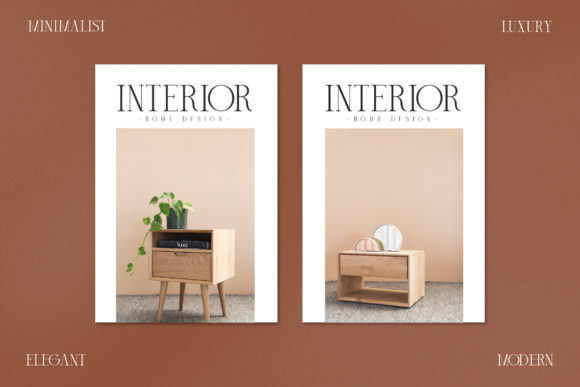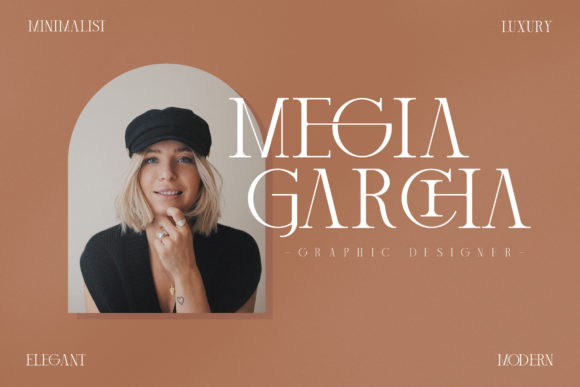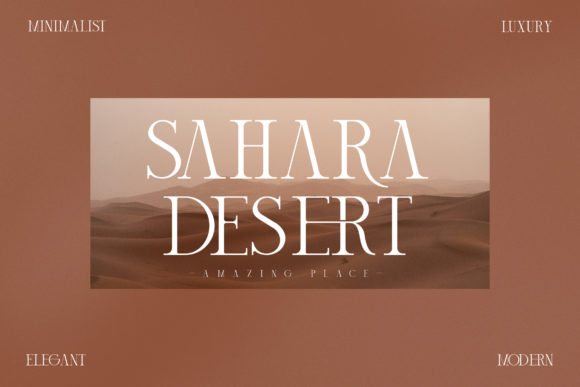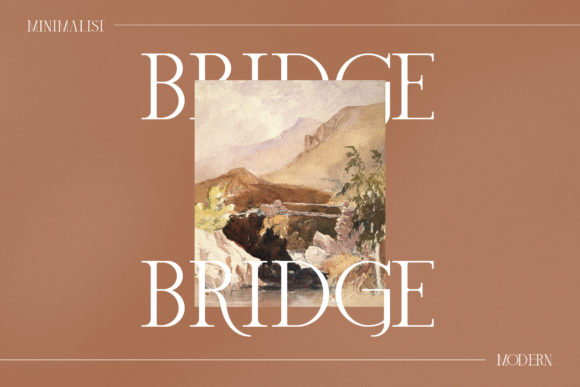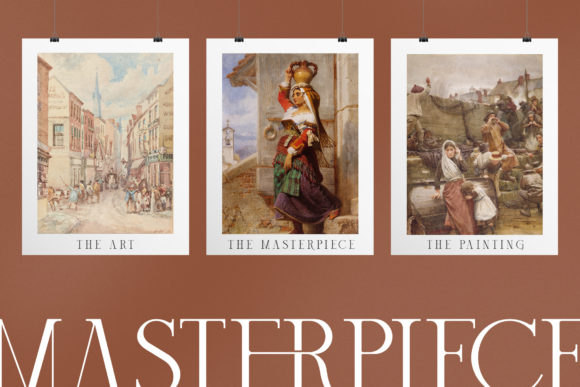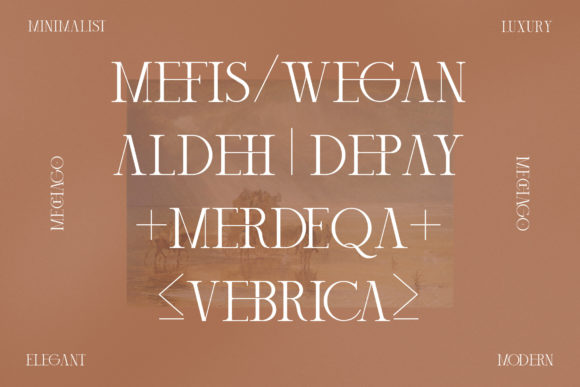
Introduction to Mechago Font
Have you ever been in the midst of a creative project, staring at a blank canvas or a blank page, and suddenly, an idea strikes you? The thrill of bringing that vision to life is exhilarating, and the right design resource can make all the difference. That’s where Mechago Font comes in – a tall and thin lettered serif font that’s about to take your crafting ideas to the next level.
Key Features of Mechago Font
- High-quality vector design, ideal for creative projects requiring precision and clarity.
- Transparent background, allowing for seamless integration into various design elements and backgrounds.
- Includes 12 unique characters, offering a versatile range of design possibilities.
- Designed with a focus on modern aesthetics, making it a valuable design resource for contemporary projects.
- High-resolution design, suitable for large-scale print materials and digital displays.
Honest Review: Mechago Font
Here’s what I like about the Mechago Font:
- ✨ The font is highly customizable, allowing me to adjust the weight, size, and color to suit my design needs.
- ✨ The transparent background feature makes it easy to integrate the font into various design elements.
However, I do have some limitations to note:
- ⚠️ The font may not be suitable for all types of creative projects, particularly those requiring a more formal or traditional look.
- ⚠️ Some users may find the font too bold or overpowering, which could be a drawback in certain design contexts.
Overall, I’m impressed with the Mechago Font’s versatility and high quality. While it may not be perfect for every design project, it’s definitely a valuable resource to have in my design arsenal. If you’re looking for a bold and eye-catching font for your creative project, the Mechago Font is definitely worth considering.
Experiment with different font sizes, colors, and combinations to achieve the desired look.
The Mechago Font is perfect for:
- Designing logos and branding materials.
- Creating social media graphics and posts.
- Designing presentations and reports.